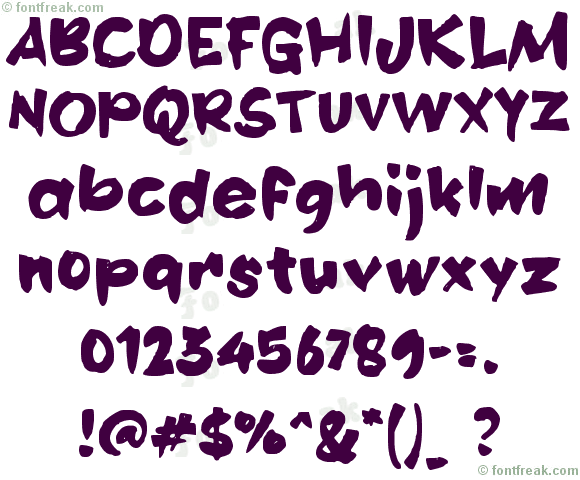
ENCAN WAU
About ENCAN WAU
ENCAN WAU by Wahyu Eka Prasetya is a distinctive display font that effortlessly combines modern aesthetics with a playful touch. This freeware typeface showcases bold, rounded letterforms that exude a sense of warmth and friendliness. The stroke weight is consistent, with well-defined edges that enhance readability while retaining a unique character. The spacing between letters is generous, allowing for clarity and legibility, making it an excellent choice for various applications.
The visual characteristics of ENCAN WAU are particularly striking. The font features playful curves and subtle decorative elements that create a lively appearance. This makes it ideal for creative projects that require an engaging and inviting typeface. Among the best use cases for ENCAN WAU are vibrant wedding invitations, where its friendly demeanor can set a joyful tone. It also works wonderfully for movie posters, lending a fun and dynamic vibe that captures attention. Additionally, restaurant menus can benefit from its charming style, helping to convey a casual and welcoming atmosphere. Graphic designers looking to create eye-catching social media graphics or promotional materials will find this font particularly appealing due to its versatility.
The target audience for ENCAN WAU includes graphic designers, small business owners, and content creators who seek a unique font to enhance their projects. Whether used in branding or marketing materials, this font provides a refreshing alternative to more conventional typefaces.
What sets the ENCAN WAU font apart is its ability to blend a modern design with a sense of playfulness, making it suitable for both professional and casual contexts. For those interested in adding this expressive typeface to their collection, the ENCAN WAU font free download offers a fantastic opportunity to elevate any design project with its distinctive flair.